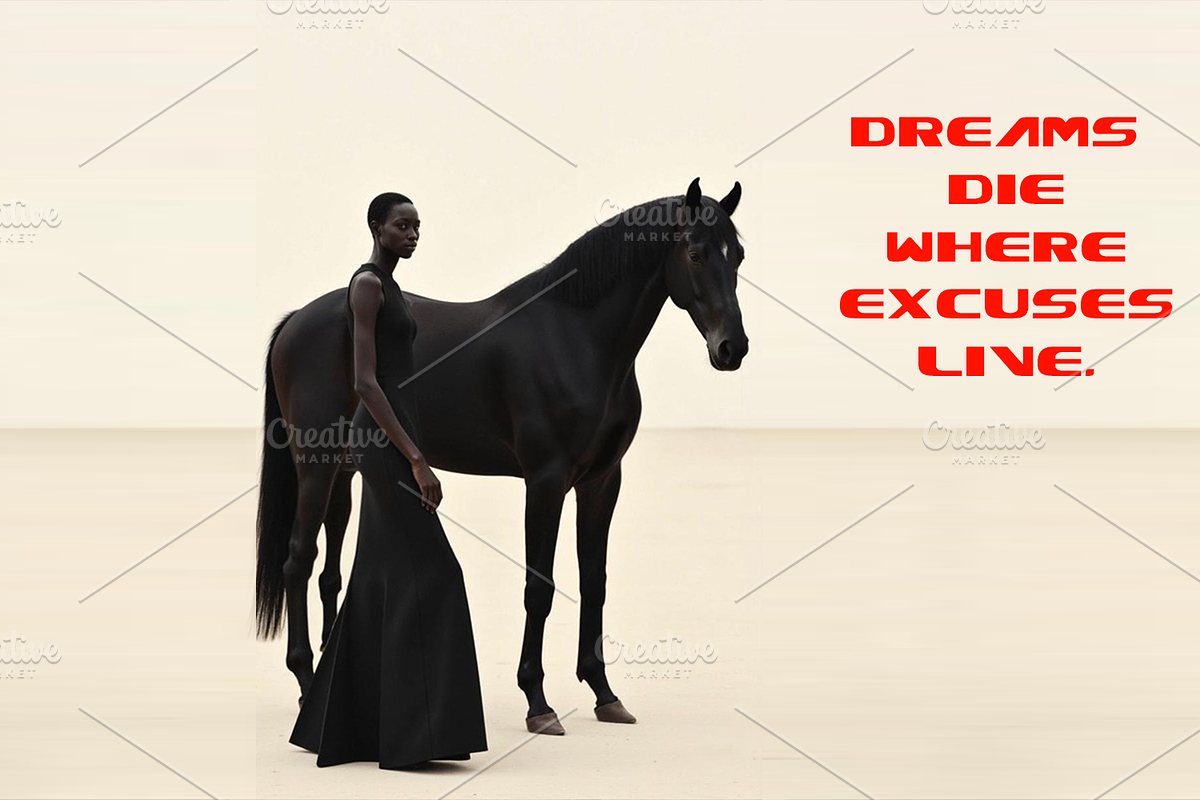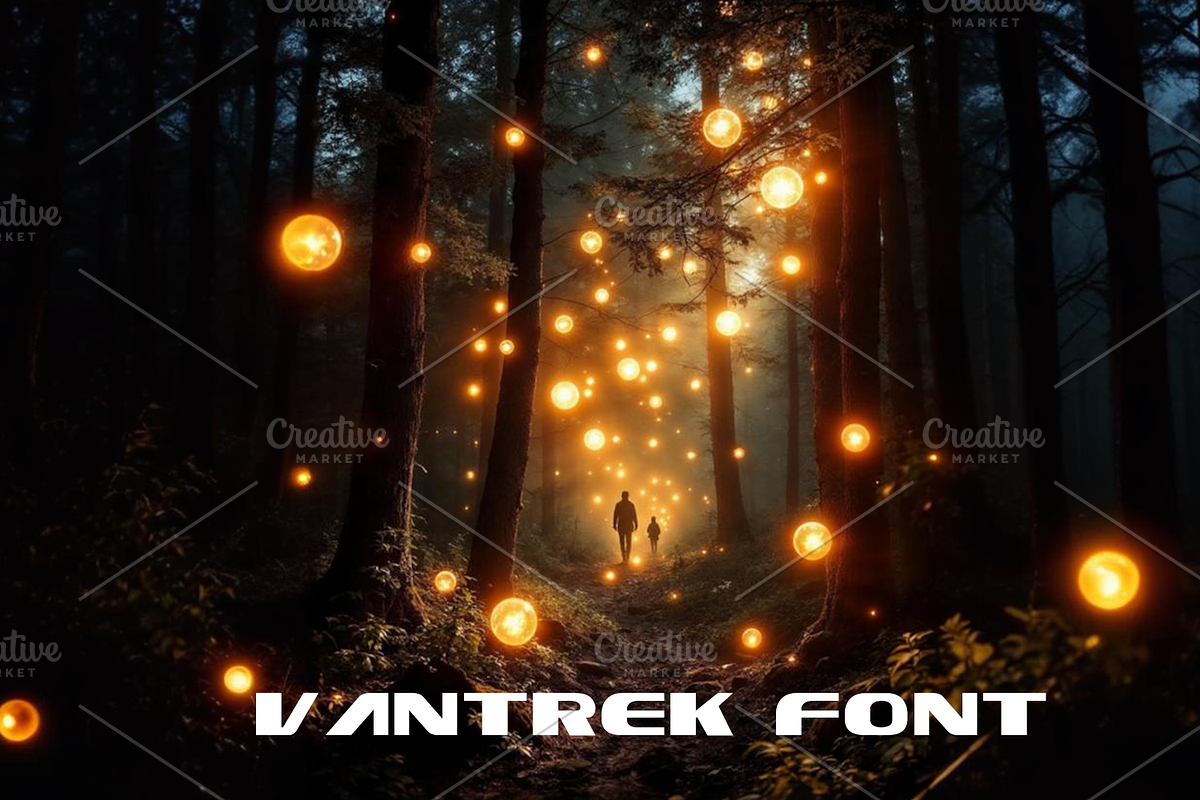
Enter the future with Vantrek– a typeface forged for speed and precision.
Every line is sharp, every angle intentional. Built for digital dominance, gaming brands, and tech-forward design.
Command attention, radiate energy, and leave a lasting mark.
With Vantrek, your words won’t just be seen—they’ll strike.